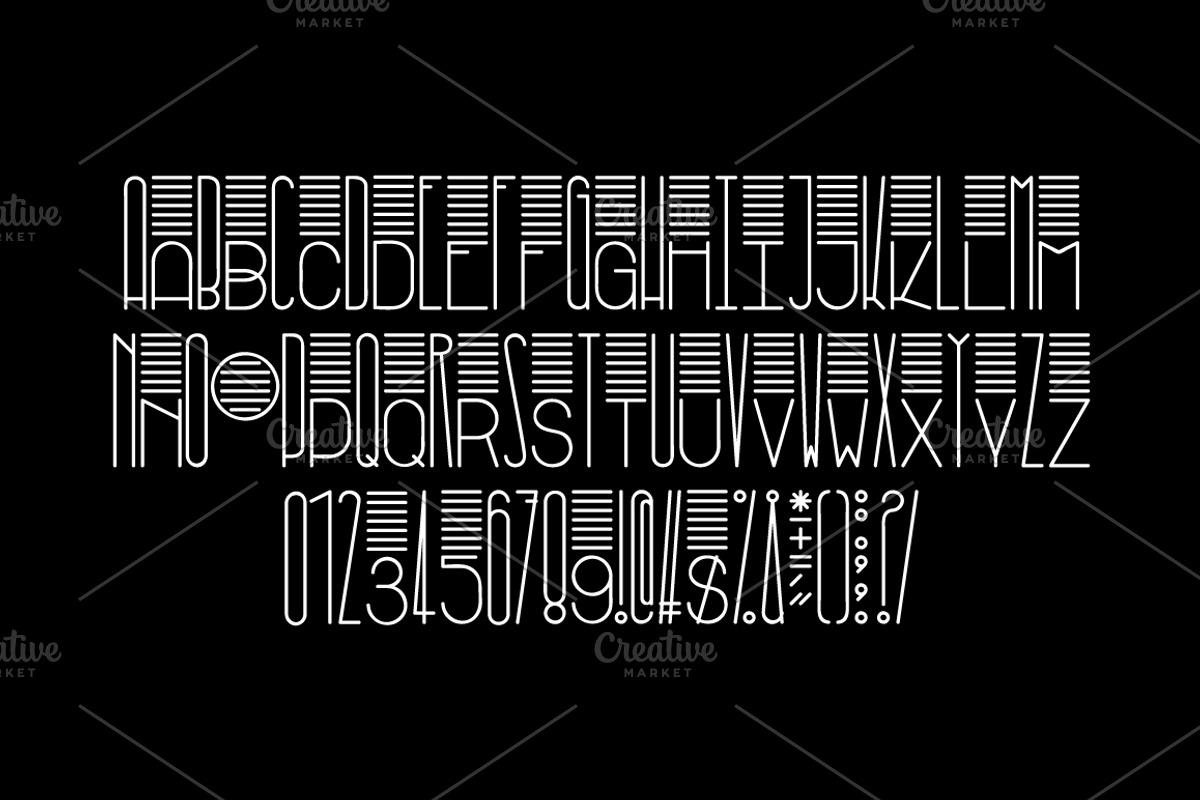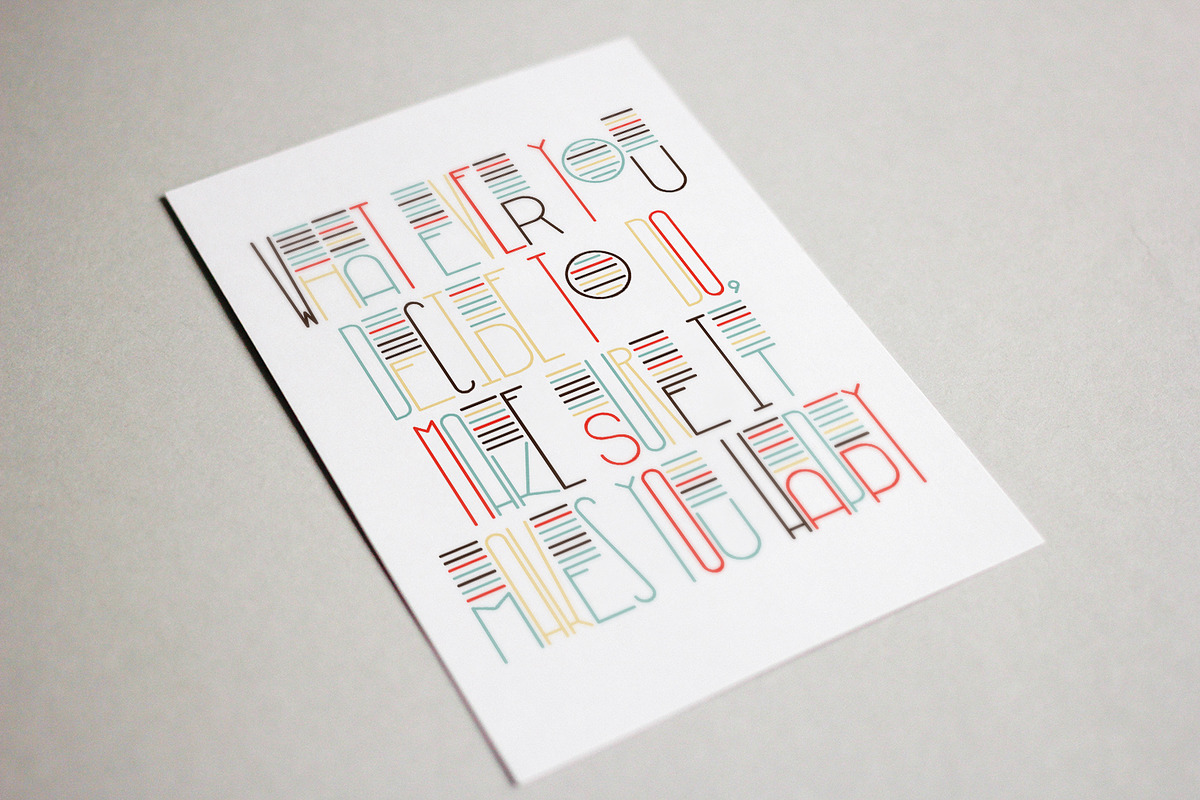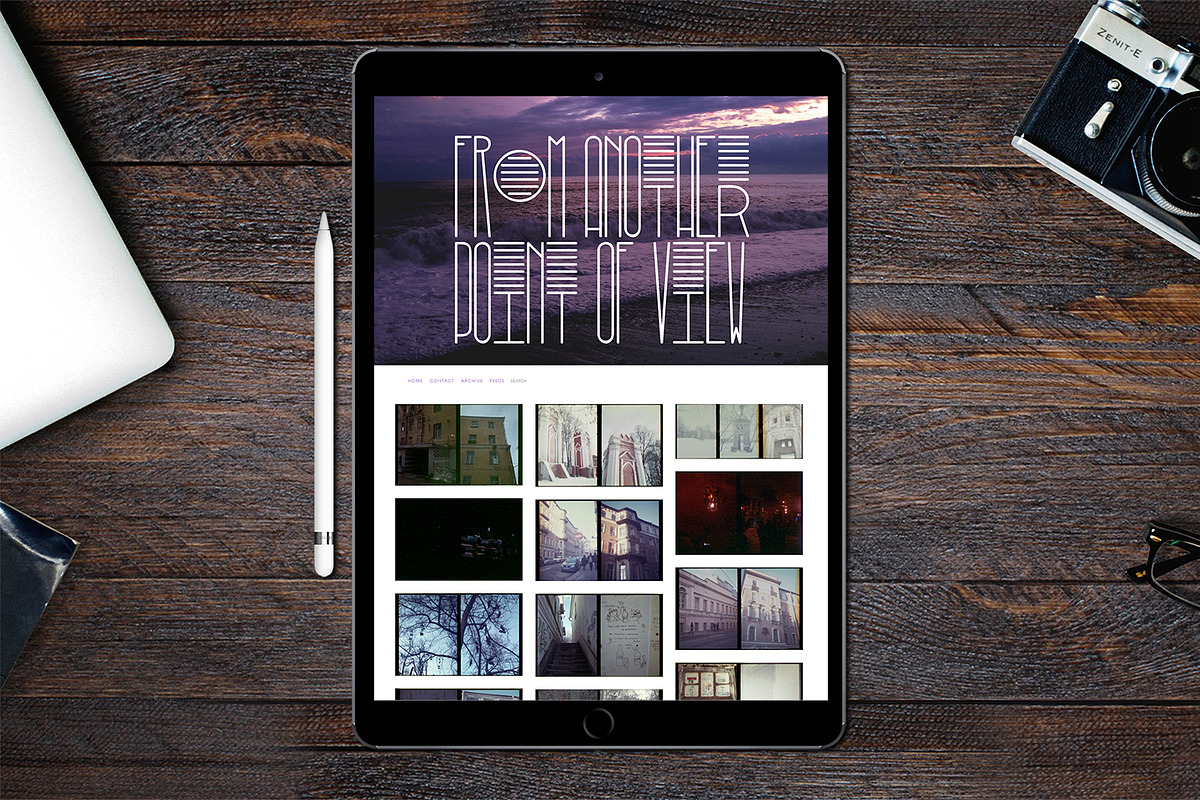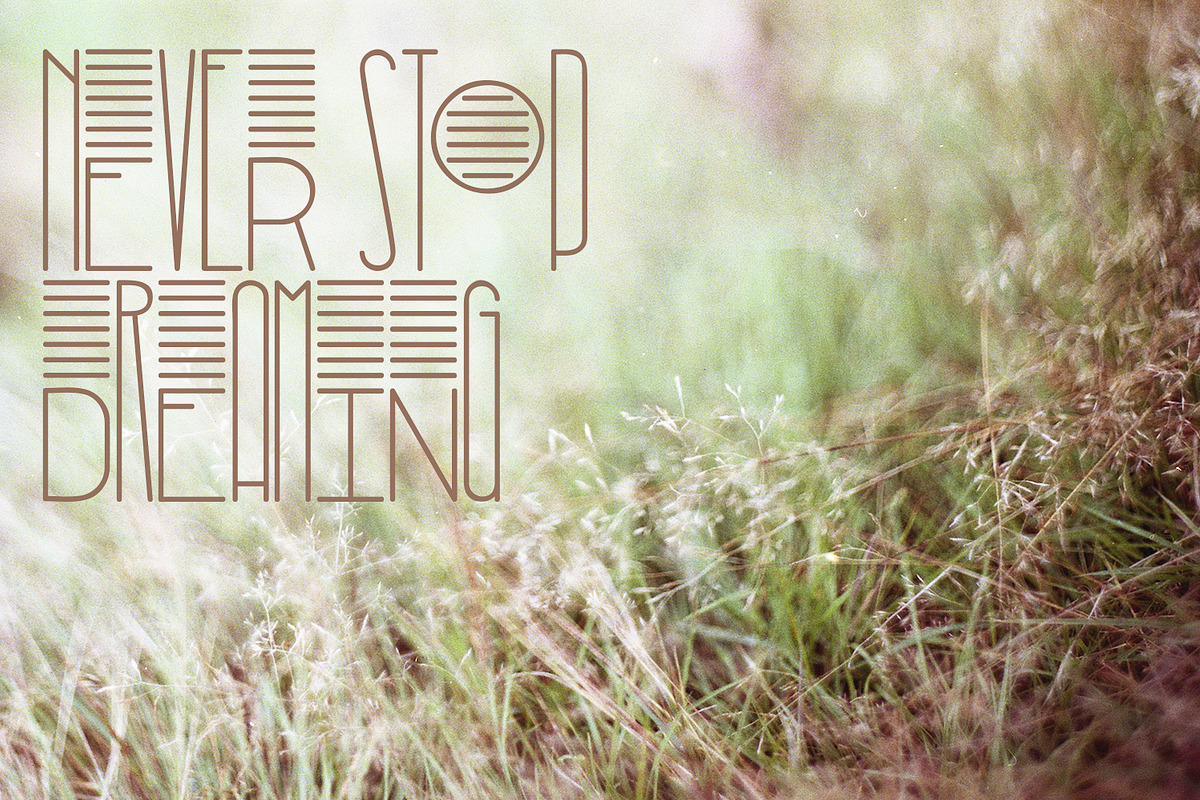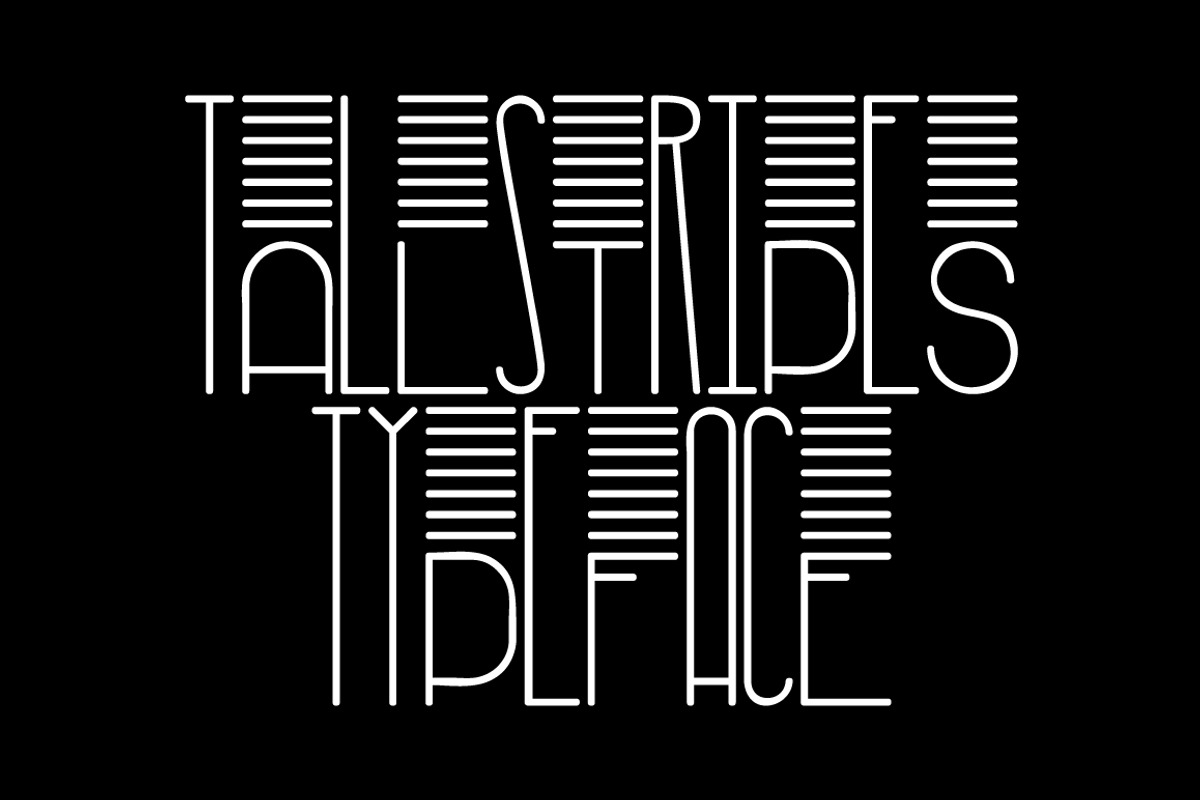
TallStripes typeface
TallStripes typeface by pixelwerk is a font selected for branding, posters, packaging, typography.
- The main idea of TallStripes typeface is that the uppercase and lowercase letters can be combined in any possible variations for original re
TallStripes typeface by pixelwerk fits naturally into Branding, posters, packaging, typography.